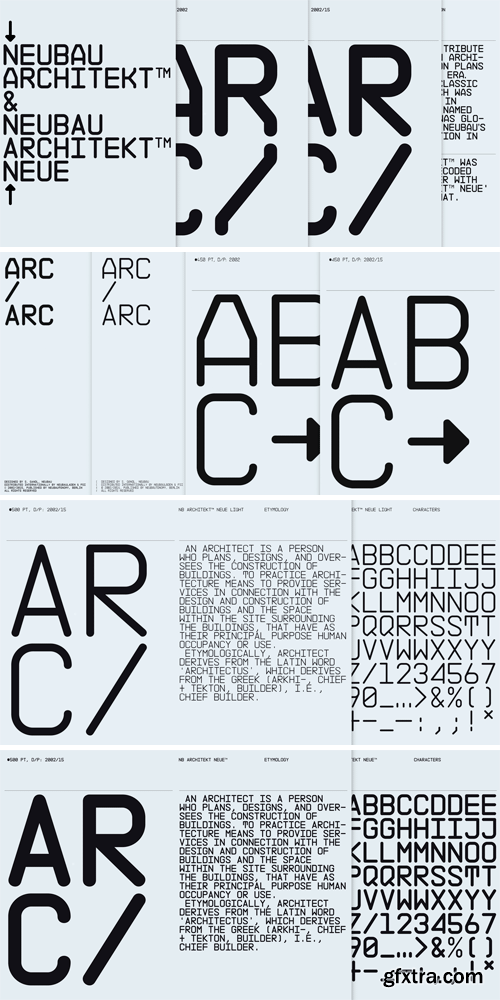
Nb Archtekt R Font
Nb Archtekt R Font - Originally designed in 2002 and named nb55rms. The typeface is a classic. Released with neubau’s neubau welt publication in 2005. Web nb architekt in use. Web nb architekt™ pays tribute to typefaces used on architectural construction plans during the ‘letraset’ era. This font made by neubau and you can buy the font on neubau website. Web starfield font is a nb archtekt r font.
Web starfield font is a nb archtekt r font. This font made by neubau and you can buy the font on neubau website. Web nb architekt in use. Web nb architekt™ pays tribute to typefaces used on architectural construction plans during the ‘letraset’ era. The typeface is a classic. Originally designed in 2002 and named nb55rms. Released with neubau’s neubau welt publication in 2005.
Released with neubau’s neubau welt publication in 2005. Web starfield font is a nb archtekt r font. Web nb architekt in use. This font made by neubau and you can buy the font on neubau website. Web nb architekt™ pays tribute to typefaces used on architectural construction plans during the ‘letraset’ era. Originally designed in 2002 and named nb55rms. The typeface is a classic.
The typeface is a classic. Web starfield font is a nb archtekt r font. Web nb architekt in use. Web nb architekt™ pays tribute to typefaces used on architectural construction plans during the ‘letraset’ era. Released with neubau’s neubau welt publication in 2005.
Originally designed in 2002 and named nb55rms. Released with neubau’s neubau welt publication in 2005. The typeface is a classic. Web nb architekt in use. Web starfield font is a nb archtekt r font.
Web nb architekt™ pays tribute to typefaces used on architectural construction plans during the ‘letraset’ era. Web starfield font is a nb archtekt r font. Originally designed in 2002 and named nb55rms. This font made by neubau and you can buy the font on neubau website. Released with neubau’s neubau welt publication in 2005.
Originally designed in 2002 and named nb55rms. The typeface is a classic. Released with neubau’s neubau welt publication in 2005. Web starfield font is a nb archtekt r font. Web nb architekt™ pays tribute to typefaces used on architectural construction plans during the ‘letraset’ era.
This font made by neubau and you can buy the font on neubau website. Originally designed in 2002 and named nb55rms. Released with neubau’s neubau welt publication in 2005. Web nb architekt™ pays tribute to typefaces used on architectural construction plans during the ‘letraset’ era. The typeface is a classic.
Web starfield font is a nb archtekt r font. Originally designed in 2002 and named nb55rms. Released with neubau’s neubau welt publication in 2005. Web nb architekt in use. This font made by neubau and you can buy the font on neubau website.
Web nb architekt™ pays tribute to typefaces used on architectural construction plans during the ‘letraset’ era. Web nb architekt in use. Web starfield font is a nb archtekt r font. This font made by neubau and you can buy the font on neubau website. The typeface is a classic.
Web nb architekt in use. Web starfield font is a nb archtekt r font. Originally designed in 2002 and named nb55rms. Web nb architekt™ pays tribute to typefaces used on architectural construction plans during the ‘letraset’ era. This font made by neubau and you can buy the font on neubau website.
Released with neubau’s neubau welt publication in 2005. The typeface is a classic. Web starfield font is a nb archtekt r font. Originally designed in 2002 and named nb55rms. This font made by neubau and you can buy the font on neubau website.
Originally designed in 2002 and named nb55rms. This font made by neubau and you can buy the font on neubau website. Web nb architekt™ pays tribute to typefaces used on architectural construction plans during the ‘letraset’ era. Web starfield font is a nb archtekt r font. Released with neubau’s neubau welt publication in 2005.
Released With Neubau’s Neubau Welt Publication In 2005.
The typeface is a classic. Web nb architekt in use. Web starfield font is a nb archtekt r font. Originally designed in 2002 and named nb55rms.
Web nb architekt™ pays tribute to typefaces used on architectural construction plans during the ‘letraset’ era.